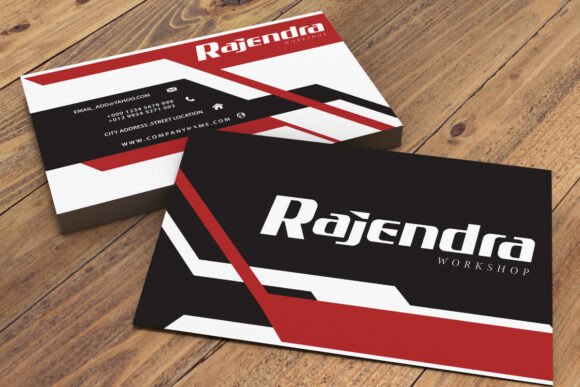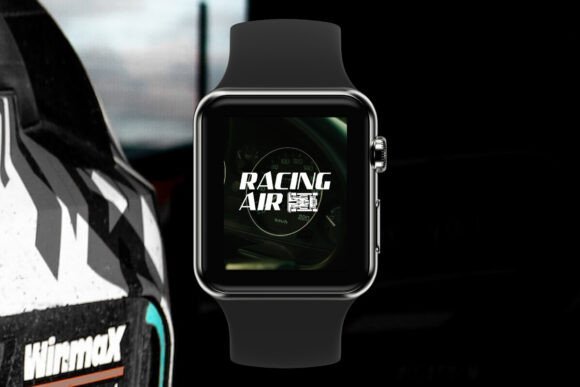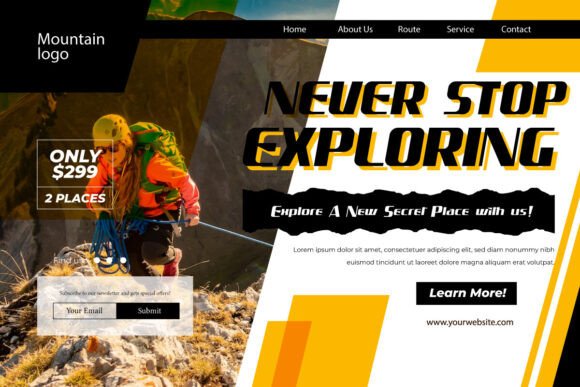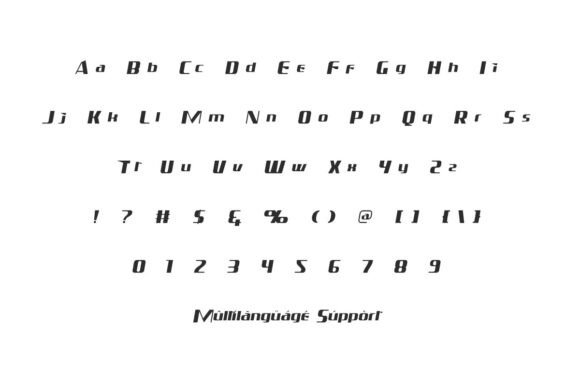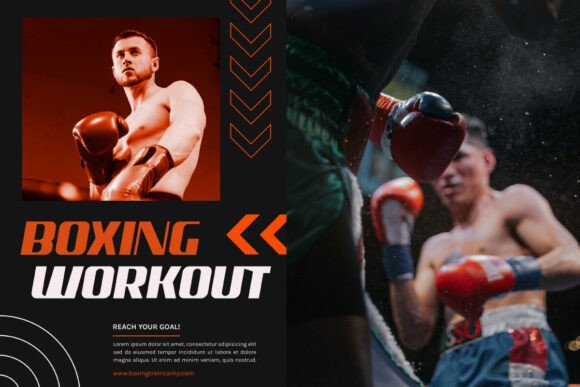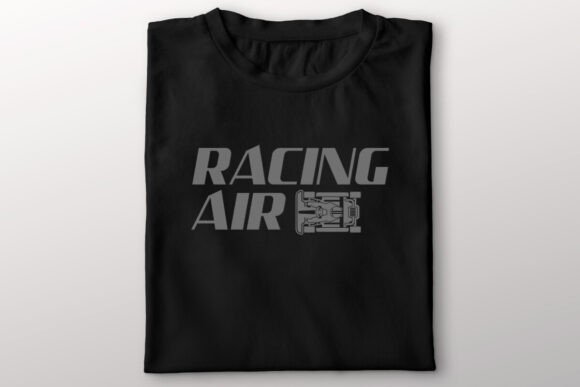
Introduction to Racing Air Font
Racing Air Font is a fast racing display font with classic, simple looks.
This font has bold characters with a unique shape that is its own characteristic It will suit many designs, such as cover, custom design, invitation, label, product packaging, poster, quote, signage, stationery, website, and more.